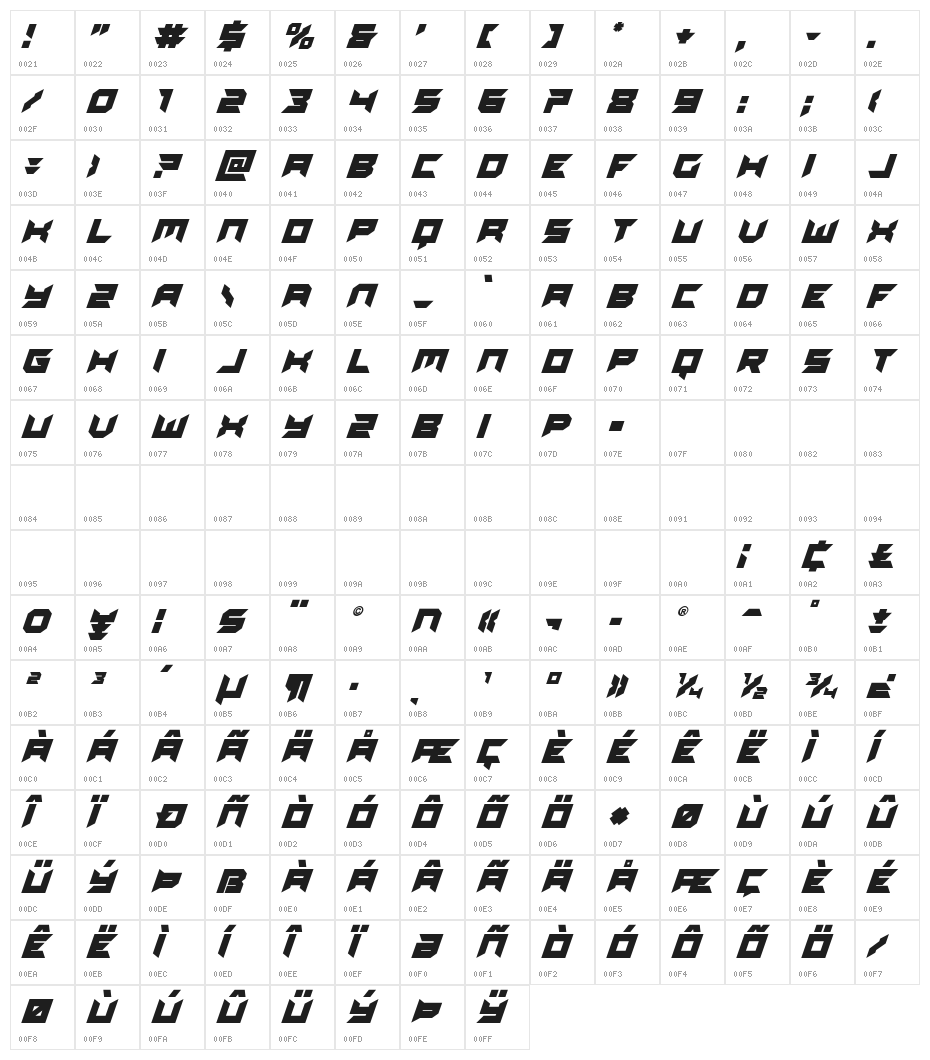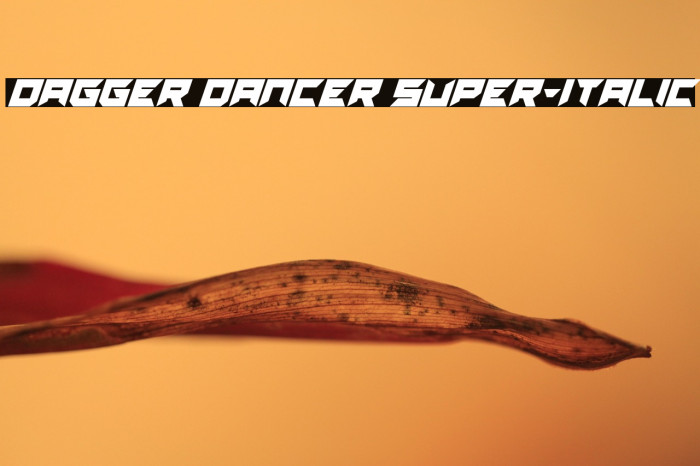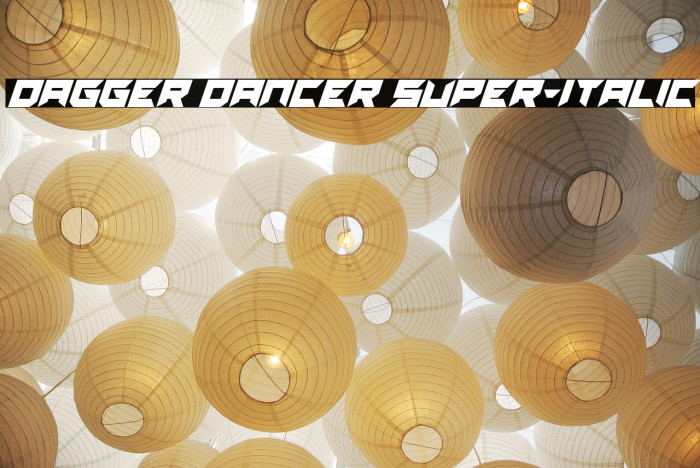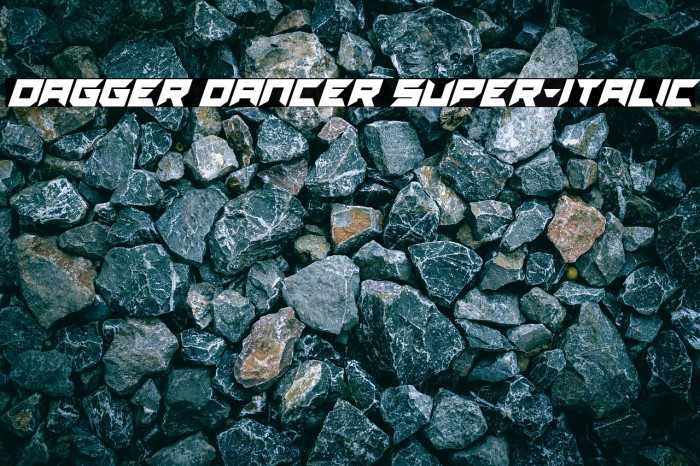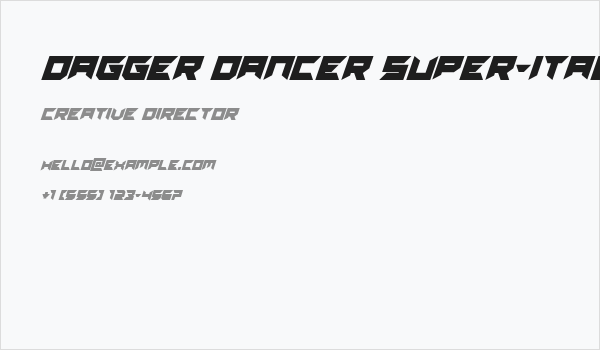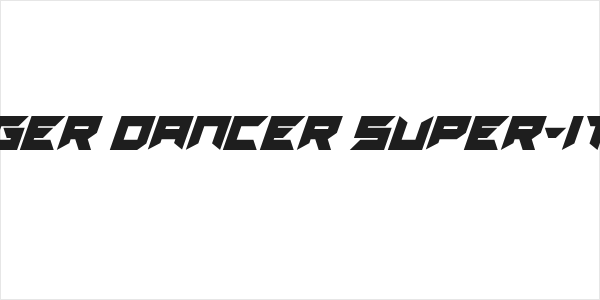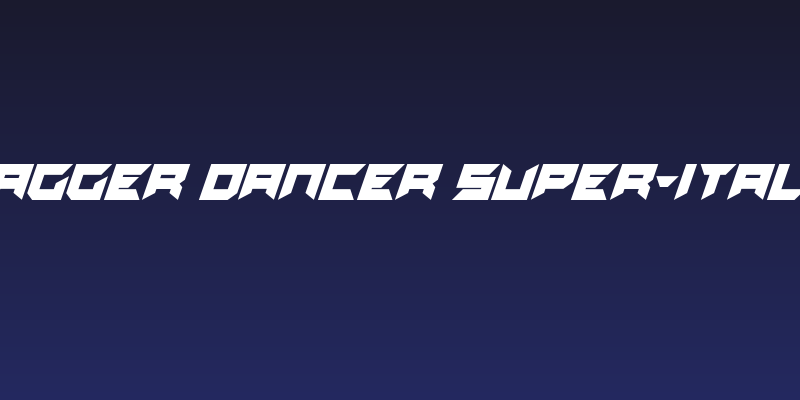
Dagger Dancer Super-Italic Font
Dagger Dancer Super-Italic Description
This font features a bold, angular design with sharp edges and a dynamic, italicized slant. The characters are distinctly geometric, giving a futuristic and aggressive appearance. The uppercase and lowercase letters maintain a consistent style, with each character exhibiting a unique, edgy form. The numbers and special characters follow the same design principles, ensuring uniformity across all glyphs. The overall aesthetic is striking and modern, making it suitable for attention-grabbing designs.